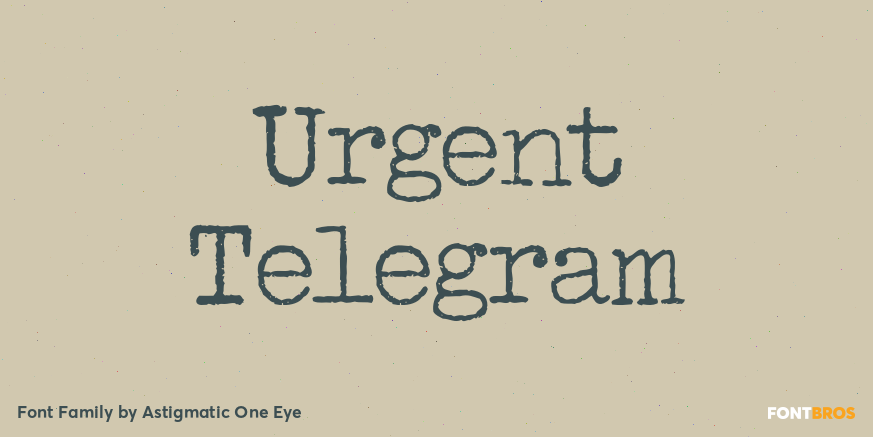
HomeFont BrosDistressedUrgent Telegram DistressedSerif Urgent Telegram FacebookXPinterestWhatsApp 1 of 1 About Urgent Telegram A typeface made from vintage typewriter samples and meticulously compiled into a complete character set.  DOWNLOAD NOW People also explored Quinchan Font Posting Font Saturday Wedding Font Naturella Lips Font Billy Queen Font Maritime Champion Font Hello Beach Font Father Font 311 0 TagsUrgent Telegram Font Previous articleShintia ScriptNext articleCabaret LEAVE A REPLY Cancel reply Comment: Please enter your comment! Name:* Please enter your name here Email:* You have entered an incorrect email address! Please enter your email address here Website: Save my name, email, and website in this browser for the next time I comment. Personal Use Free Vanilla Whale Personal Use Free Read more about this font Pumpkins Candles Personal Use Free Read more about this font Geuli Personal Use Free Read more about this font Kredit Personal Use Free Read more about this font BLOG Fonts That Capture the Spirit of New York City New York City is more than just a place—it’s an experience, a rhythm, a visual language... Free vs Paid Fonts: Why Investing in Premium Fonts Is Worth It Best Fonts for T-Shirt Design – Top 2025 Picks Top 10 Handwritten Fonts That Elevate Your Designs